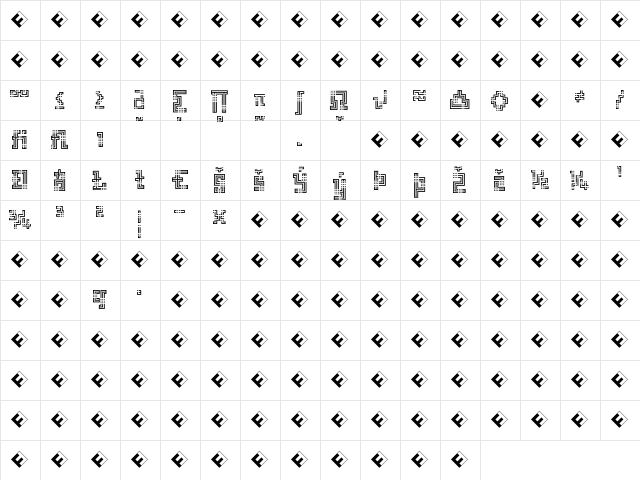
Archian BoogieWoogieExpert Font Preview
Archian BoogieWoogieExpert
Design Context for Archian Typeface
Archian is a composed and adaptable typeface that performs quietly and consistently across a wide range of design contexts.